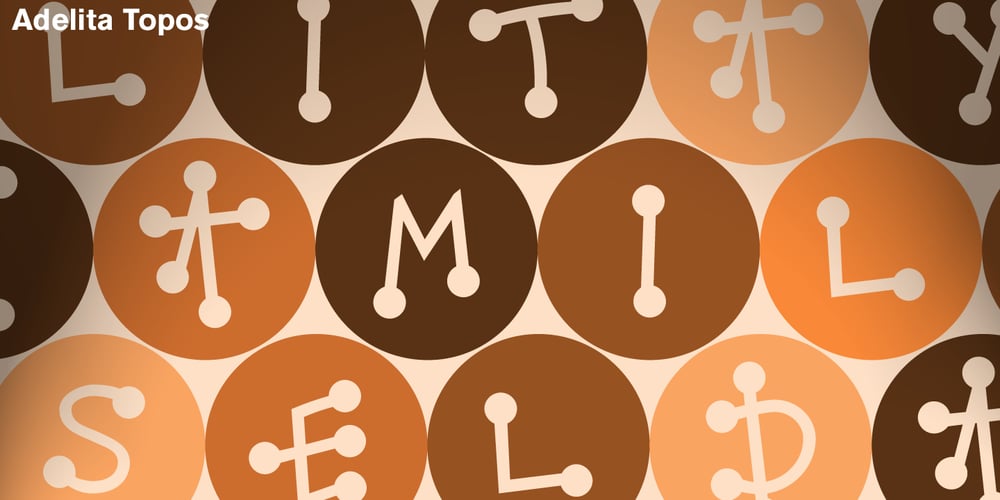
Adelita
Adelita font
Adelita Font Family was designed by Laura Meseguer, Adela de Bara and published by Type-Ø-Tones. Adelita contains 4 styles and family package options. Adelita by Adela de Bara, Laura Meseguer / OpenType, 4 styles Adelita has its origins from Adela de Bara’s hand drawings, a display typeface with balls at the end of the strokes. Helped by Laura Meseguer, this artist entered our catalogue in the nineties with four weights: three display faces and a collection of naive dingbats.